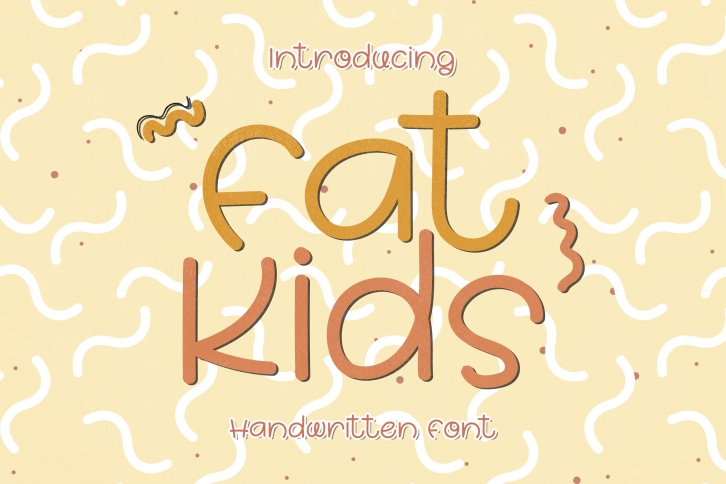
Fat Kids - A Chubby Handwritten Font Download
Fat Kids is a great font that was designed by WADLEN. Imagine the amount of combinations you can create using this font! The archive is 2.46 MB and it was released on September 27, 2020. Fat Kids looks beautiful on wedding invitations, greeting cards, logos, posters, labels, t-shirt designs, logos, business cards and is perfect for use in ink or watercolor works, fashion, magazines, packaging and food menus, children's books and more!